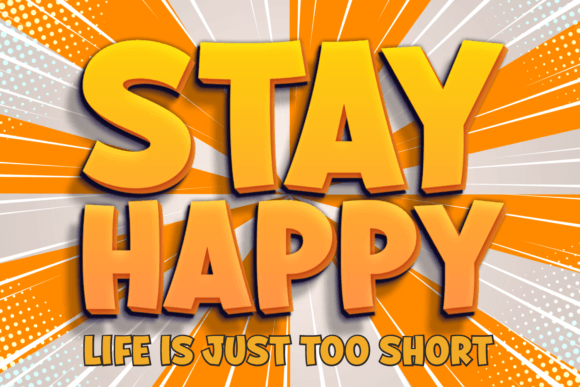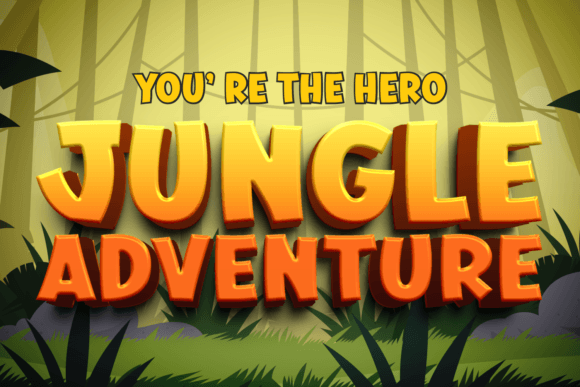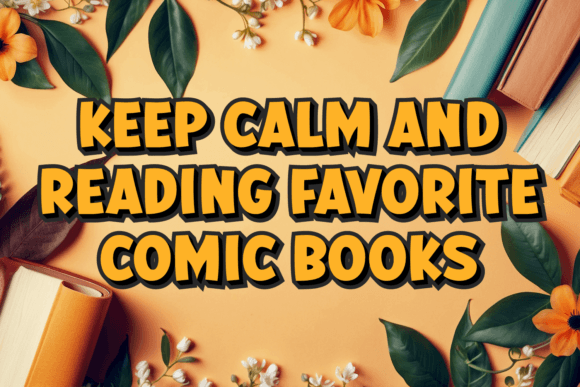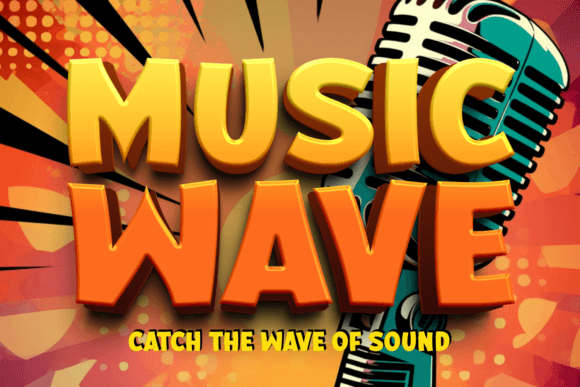
Introduction to Little Jungle Font
Do you remember the moment when you stumbled upon the perfect font for your creative project? The one that instantly brought your idea to life and made it impossible to imagine it with any other typeface? For many designers, that moment is what makes the design process truly magical. And, for those who are always on the lookout for that elusive font, we’re excited to introduce you to the Little Jungle Font.
This charming display comic font is more than just a cute addition to your design arsenal. Its whimsical charm can add a unique flair to even the most mundane projects, making it a valuable resource for designers who want to stand out from the crowd. Whether you’re working on a branding project, creating social media graphics, or designing product packaging, the Little Jungle Font is sure to bring a smile to your face and a touch of personality to your design.
Key Features of Little Jungle Font
- High-quality, hand-drawn design perfect for creative projects and design resources.
- Features a transparent background, making it ideal for use on any design surface.
- Includes a range of unique, jungle-inspired characters and symbols.
- Designed with a bold, playful style that adds a touch of whimsy to any design project.
Honest Review: Little Jungle Font
- Unique and playful design that’s perfect for adding a touch of whimsy to your designs
- High-quality font files that are clear and easy to read
- Transparent background option, making it easy to overlay on images or other design elements
- Only a limited character set, which may not be suitable for longer blocks of text
- No bold or italic font options, which may limit its versatility
Overall, I’m impressed with the Little Jungle Font‘s unique design and high-quality files. While it may have some limitations, it’s a great addition to any designer’s toolkit. With a little creativity, it’s easy to work around its limitations and create some amazing designs. I’d definitely recommend giving it a try!
Tips for Getting the Most Out of Little Jungle Font
Use the Little Jungle Font in combination with other design elements to create visually appealing designs. Experiment with different font sizes, colors, and styles to achieve the desired effect. You can also use the font in conjunction with other design resources to create a unique and eye-catching design.
The Little Jungle Font is suitable for a wide range of creative projects, including logos, business cards, brochures, and social media graphics. Its high-quality design and transparent background make it an ideal choice for designers looking to add a touch of creativity to their work.